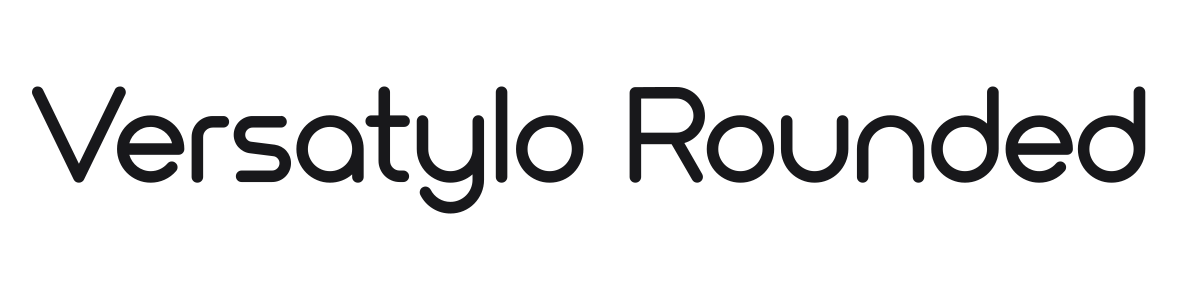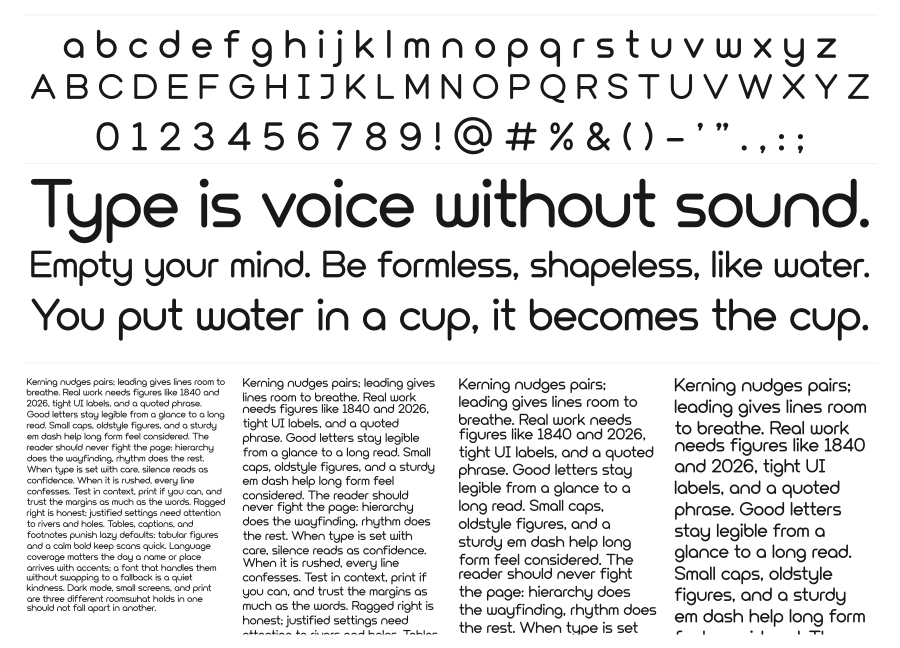
Versatylo Rounded
Versatylo Rounded is a contemporary rounded sans-serif built on a monoweight stroke with fully rounded terminals throughout. Its open apertures and gently curved construction give it a warm, approachable character without drifting into novelty territory. The design sits comfortably in logo work, product packaging, app interfaces, and brand identities where a clean but human touch is needed.